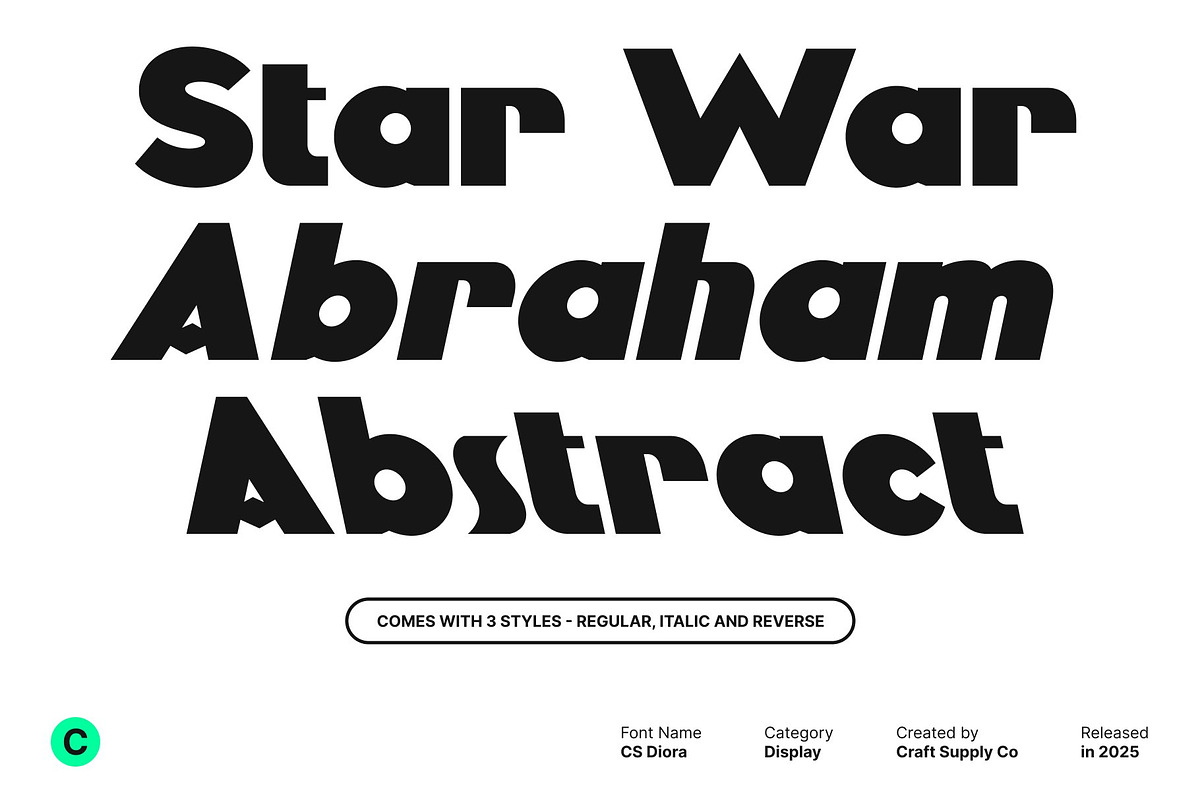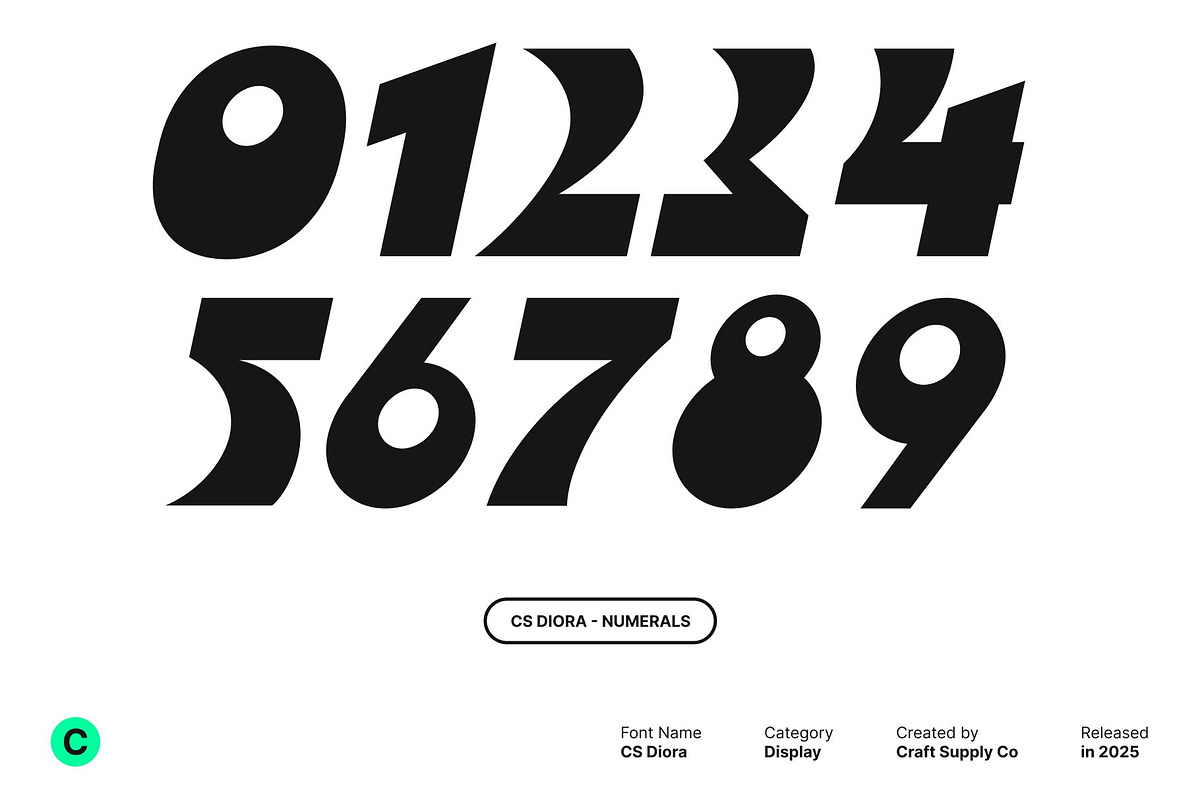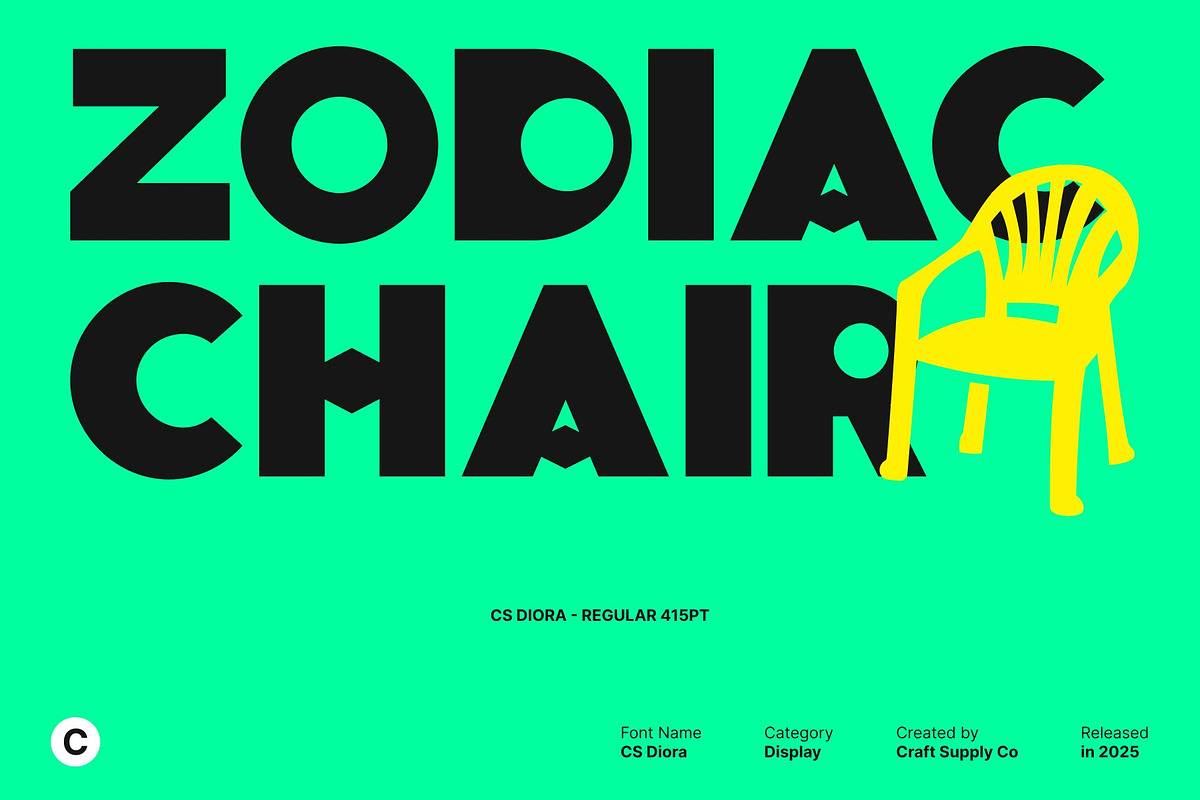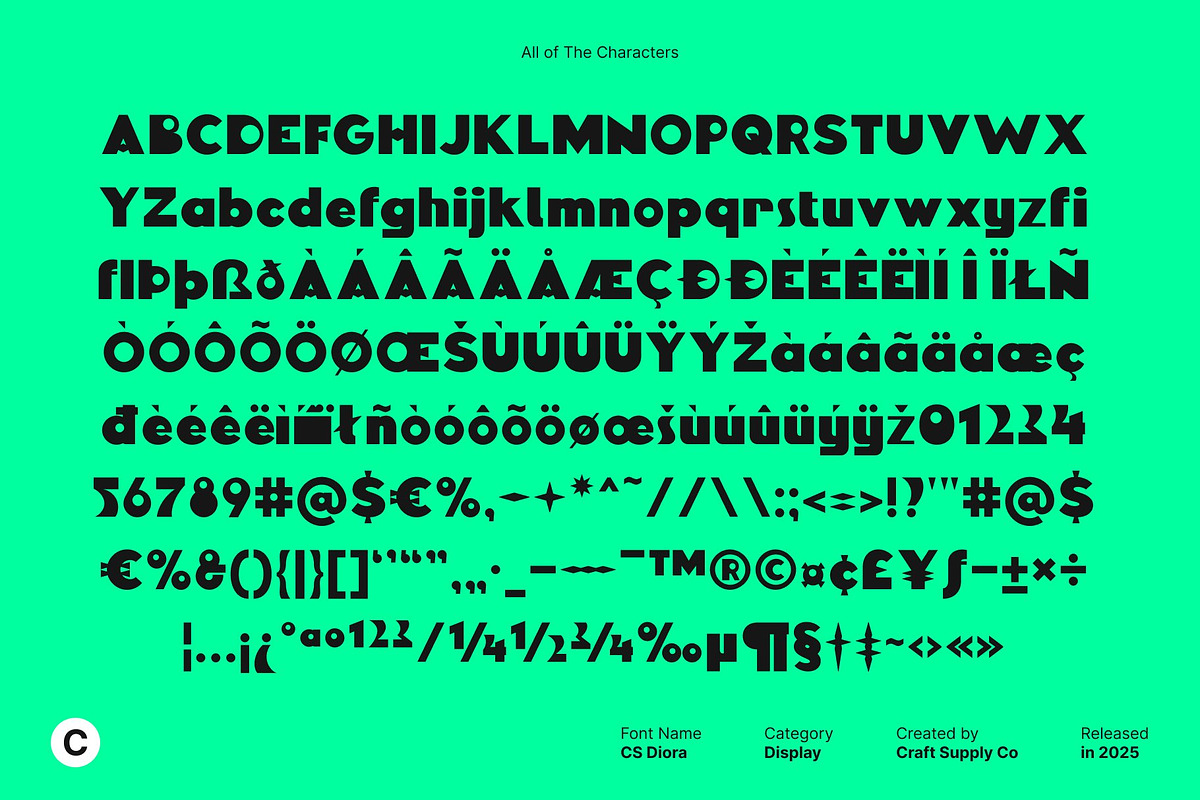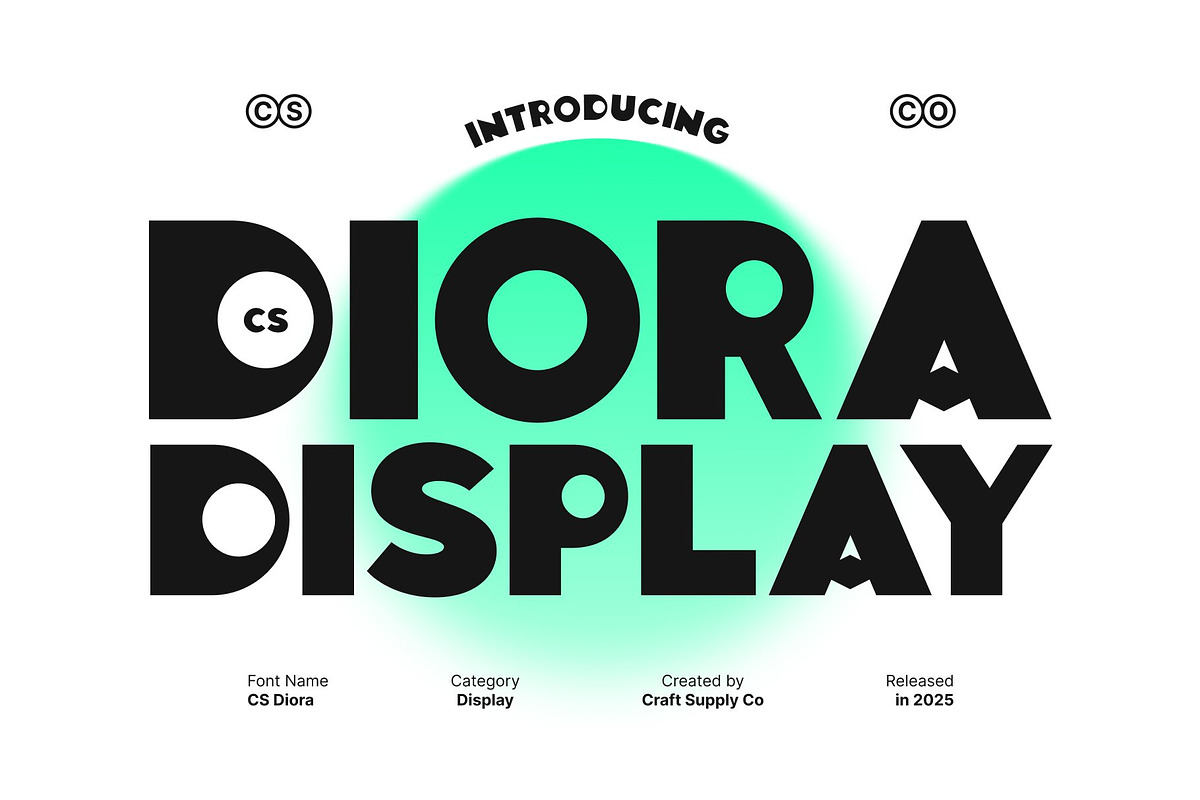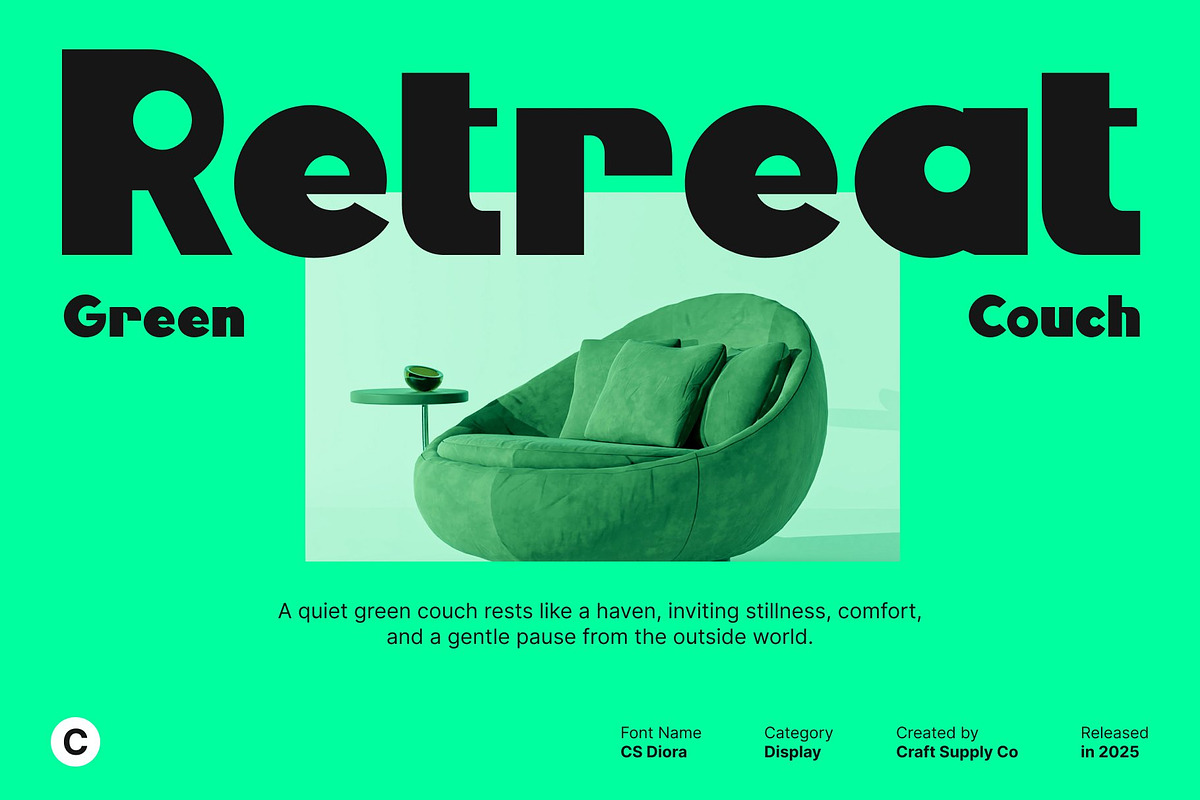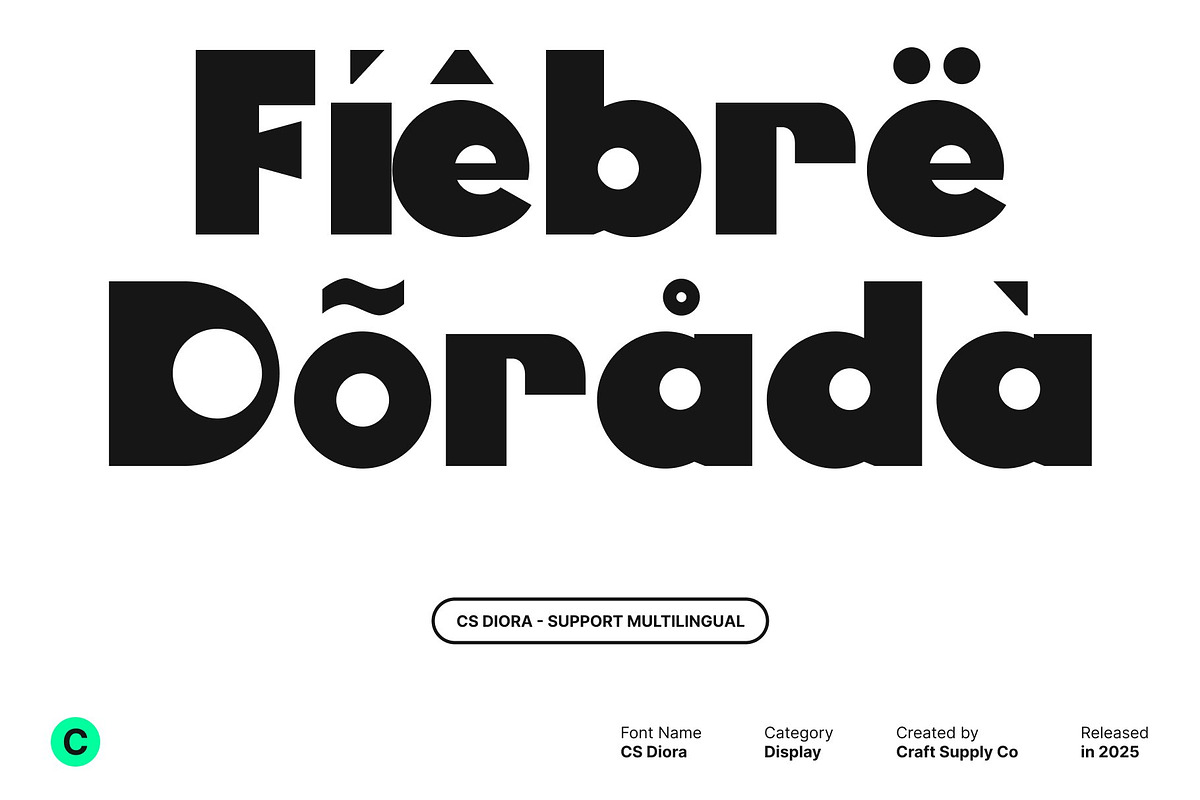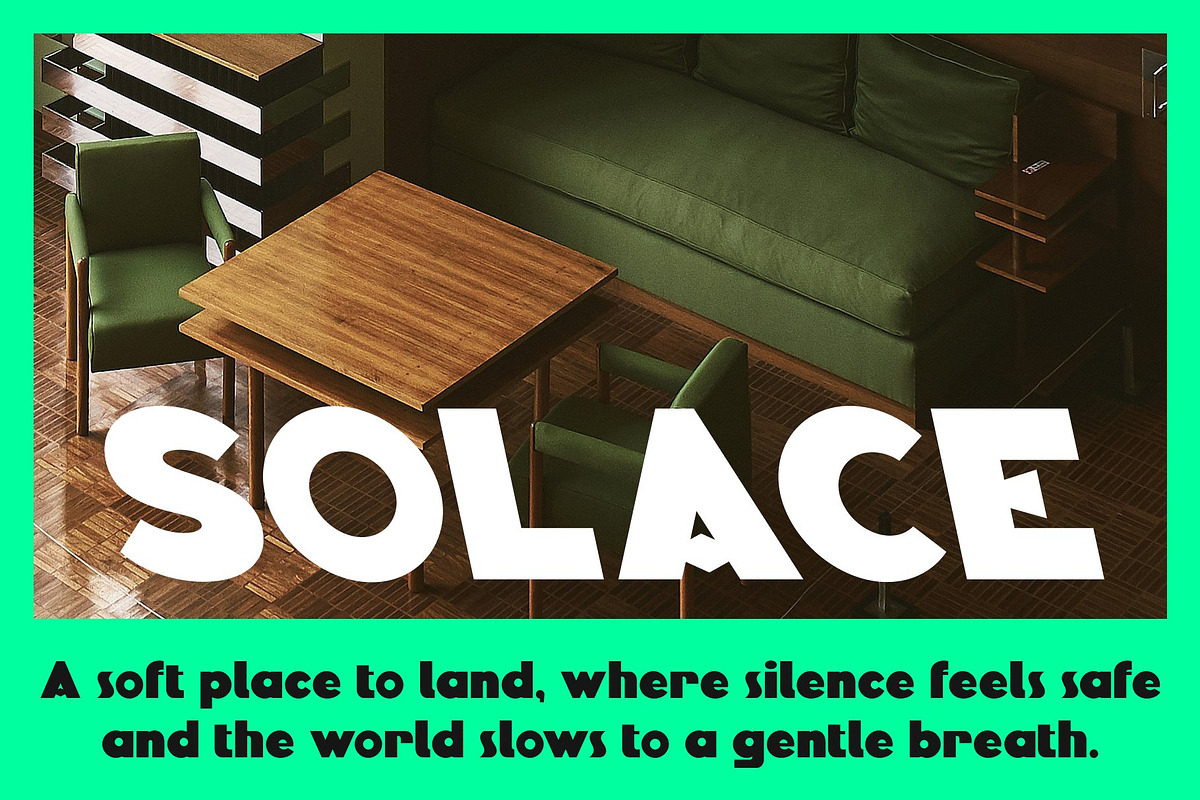
CS Diora – Bold Display Font
CS Diora – Bold Display Font with Fresh Geometric Style
Bold Design with Distinctive Geometry This is a bold display font built around strong geometric shapes and unique character constructions. Its confident letterforms create immediate visual impact, making it perfect for titles and headlines that need to stand out. The structured geometry gives the font a modern foundation, while its playful details keep it visually engaging.
Fresh, Cheerful, and Cool Personality What sets this font apart is its fresh and upbeat character. The geometry and creative letter shapes introduce a cheerful, friendly tone without losing a cool, contemporary edge. This balance makes the font feel lively and approachable, ideal for designs that aim to connect with a modern audience.
Perfect for Eye-Catching Titles and Branding This font excels in design titles, posters, branding, and creative layouts where personality is essential. Its bold presence ensures readability at large sizes, while its unique forms add charm and originality. Whether used for logos, campaigns, or social media visuals, it delivers a strong and memorable impression.
Modern, Playful, and Versatile Combining bold structure with joyful expression, this font offers versatility across print and digital media. It’s a great choice for designers seeking a display font that feels fresh, stylish, and engaging bringing energy and character to every creative project.